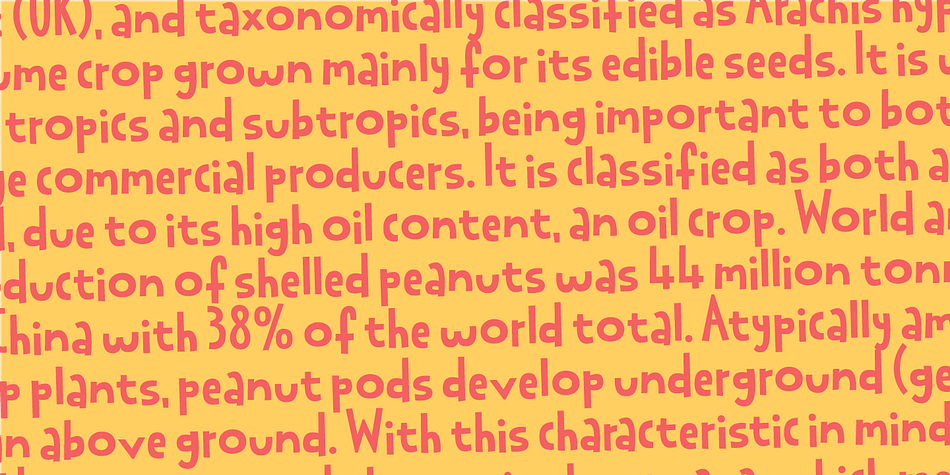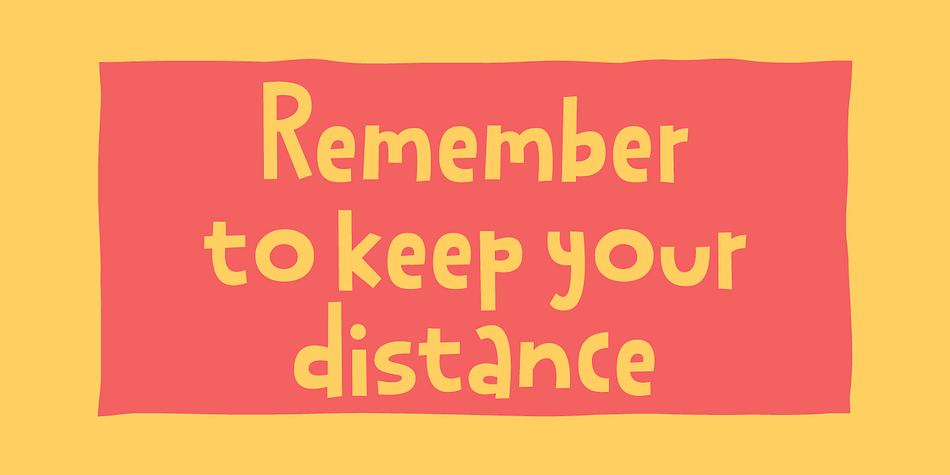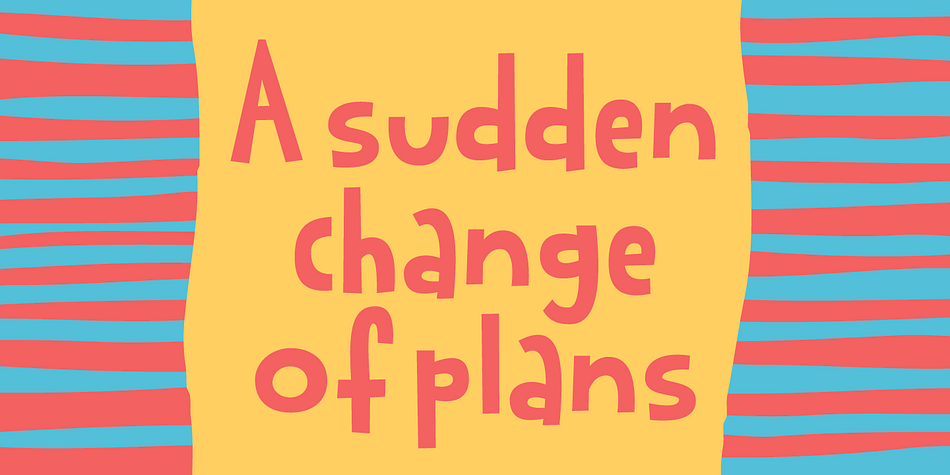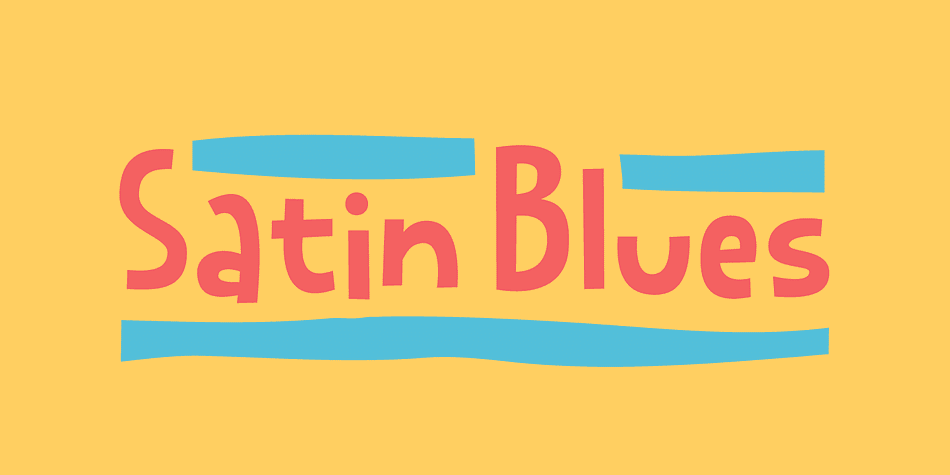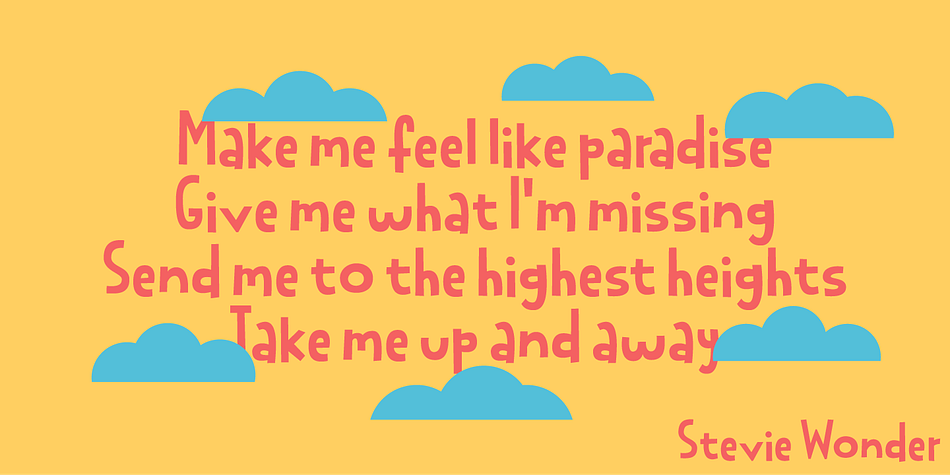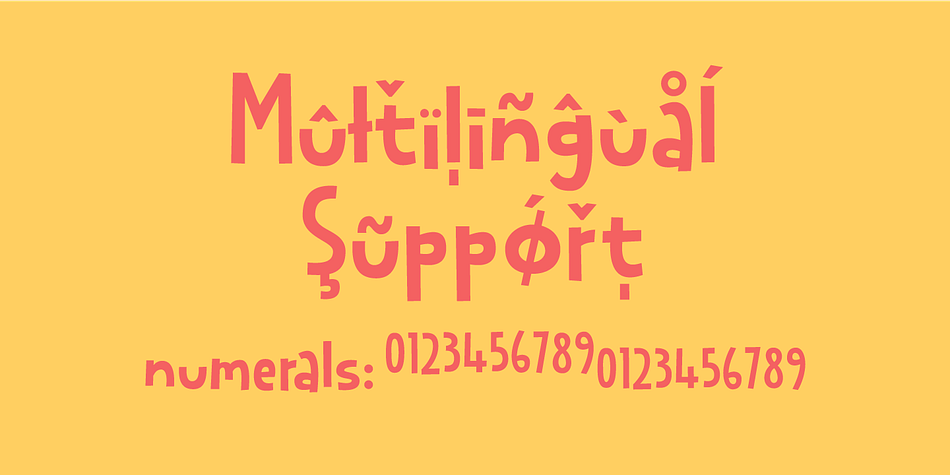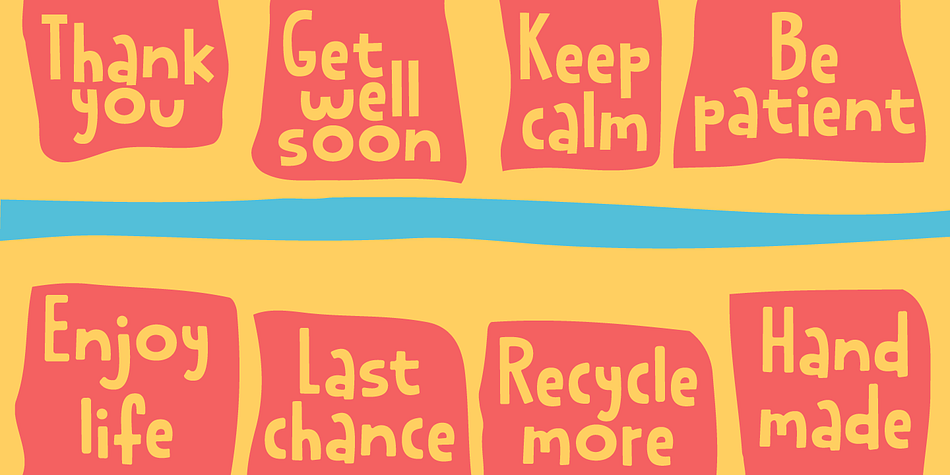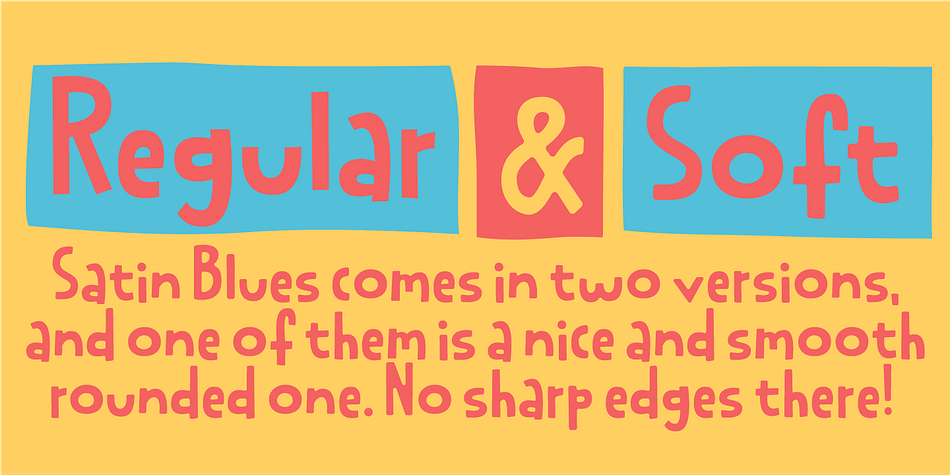
Designed by Jakob Fischer, Satin Blues is a hand display font family. This typeface has four styles and was published by Pizzadude.dk.
Satin Blues is my easy going and very legible sans. Actually I drew this by hand and then traced each letter digitally, leaving a super steady, yet funky, comic font. I’ve made two versions: the Regular and Soft. The Soft version has rounded edges, which gives a smoother look.
The font is very suitable for anything that needs a clear but wild comic look.